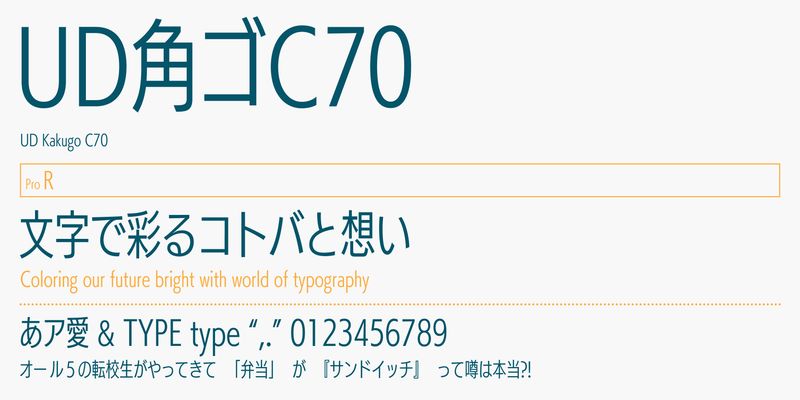
FOT-UDKakugoC70 Pro Font Free Download is a clean, modern Gothic-style typeface optimized for clarity and ease of reading. Designed with universal design (UD) principles, it’s an excellent choice for educational materials, public signage, mobile interfaces, and printed documents where accessibility is a top priority. Its balanced proportions and straightforward strokes provide excellent legibility across both Japanese and Latin scripts.